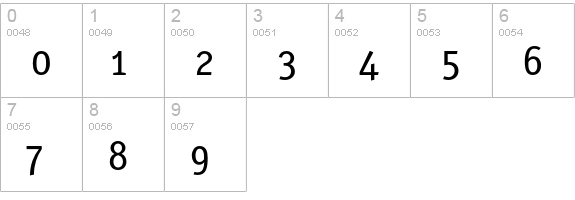
Karbid-NormalCaps Font Details
Karbid-NormalCaps is a bold and eye-catching font that exudes a strong presence. With its sharp edges and clean lines, this font is perfect for adding a touch of modernity and sophistication to any design project. The uppercase letters are characterized by their boldness and prominence, making them ideal for headings and titles that need to grab attention. What sets Karbid-NormalCaps apart is not just its stunning aesthetics, but also its accessibility. This font is available for free download at FontsMarket.com, making it easily accessible to designers and creatives of all backgrounds. Whether you're a seasoned professional or just starting out, this font allows you to elevate your designs without breaking the bank. Karbid-NormalCaps is versatile and adaptable, making it suitable for a wide range of applications. From logos and branding materials to posters and invitations, this font will effortlessly elevate your designs and leave a lasting impression. Its bold and confident nature ensures that your message will be conveyed with impact and clarity. With Karbid-NormalCaps, you have the freedom to experiment and explore. Let your creativity run wild as you play with different styles, sizes, and colors. Whether you choose to use it sparingly or make it the focal point of your design, this font will never fail to make a statement. In conclusion, Karbid-NormalCaps is a must-have font for anyone looking to add a touch of boldness and modernity to their designs. With its free availability on FontsMarket.com, there's no reason not to download and start using this font today. So go ahead, unleash your creativity, and watch your designs come to life with Karbid-NormalCaps.